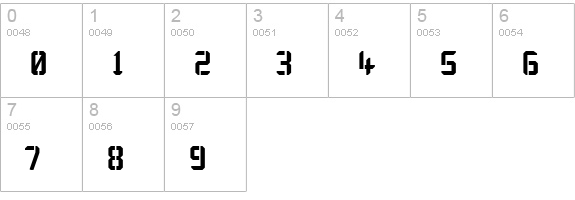
Karisma Stencil Font Details
Karisma Stencil is a modern and stylish font that combines elegance with simplicity. Its clean lines and bold strokes give any design a sophisticated touch. This versatile typeface is perfect for a wide range of projects, from branding to packaging to signage. The stencil design adds a unique and eye-catching element, making your text stand out in a crowd. What's even better is that Karisma Stencil is available for free download at FontsMarket.com. Whether you're a professional designer looking to add a new font to your collection or a hobbyist looking for something fresh and exciting, Karisma Stencil is the perfect choice. So why wait? Download this stunning font today and take your designs to the next level.